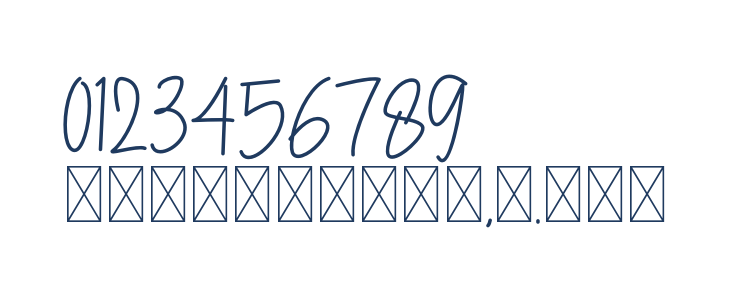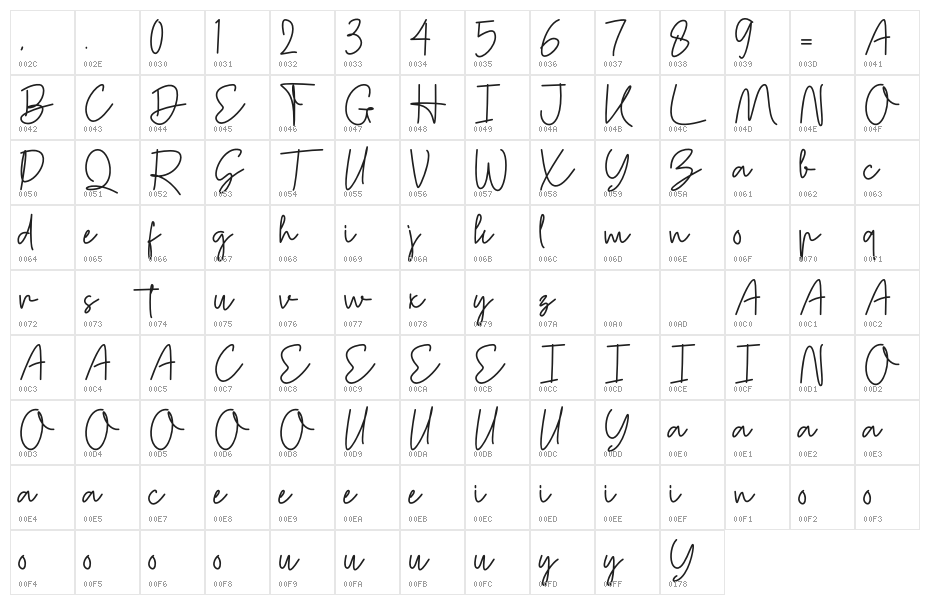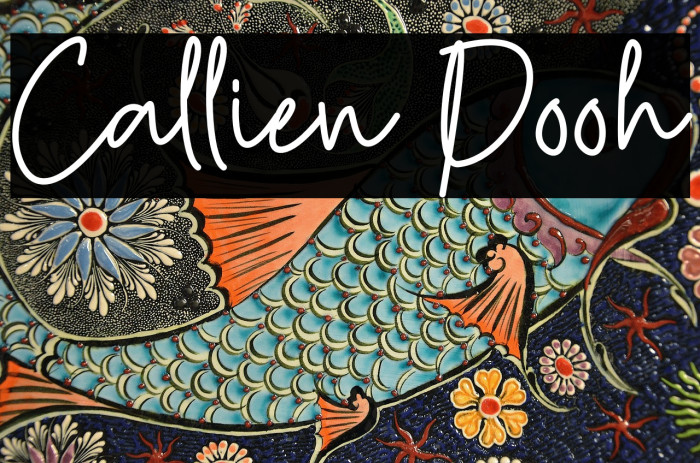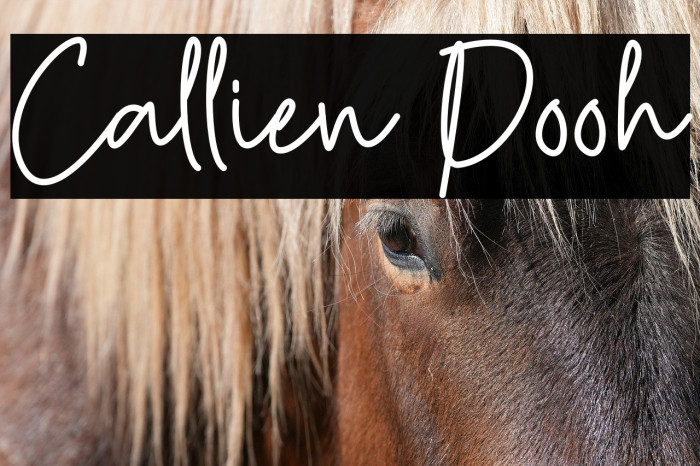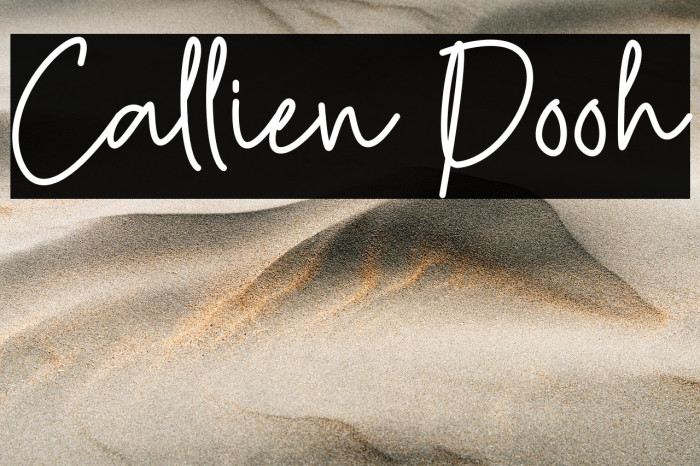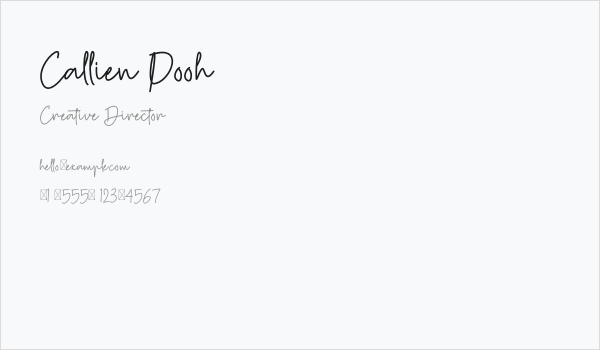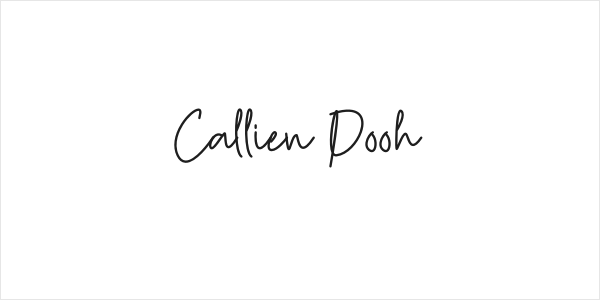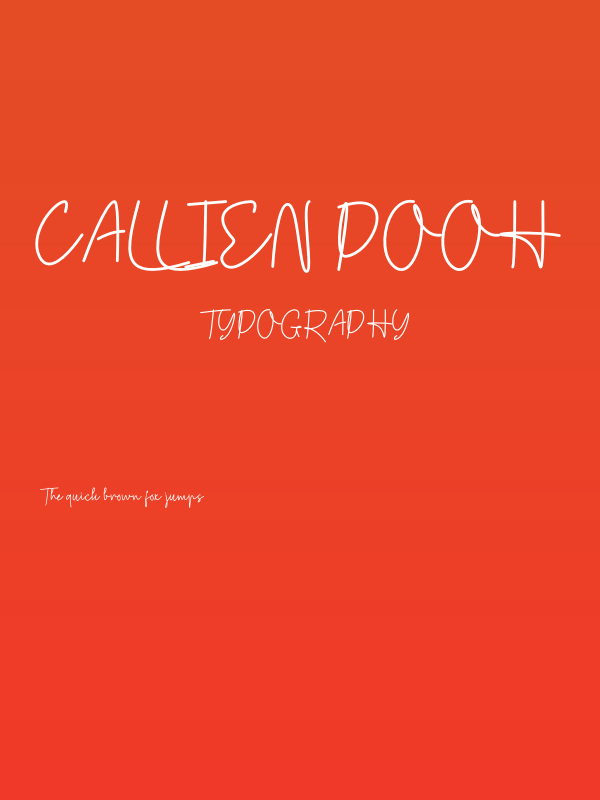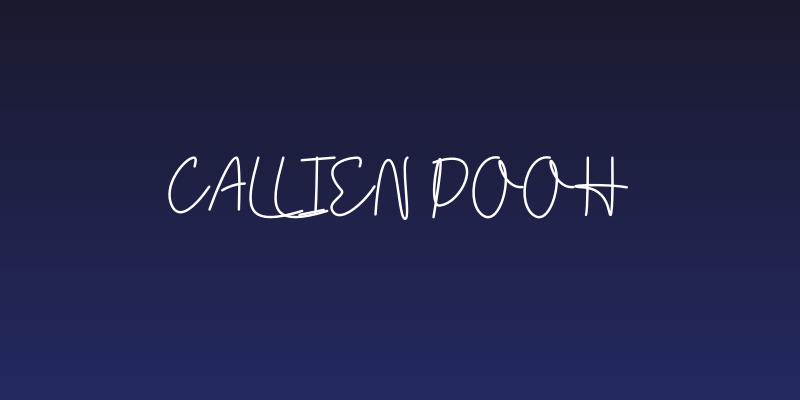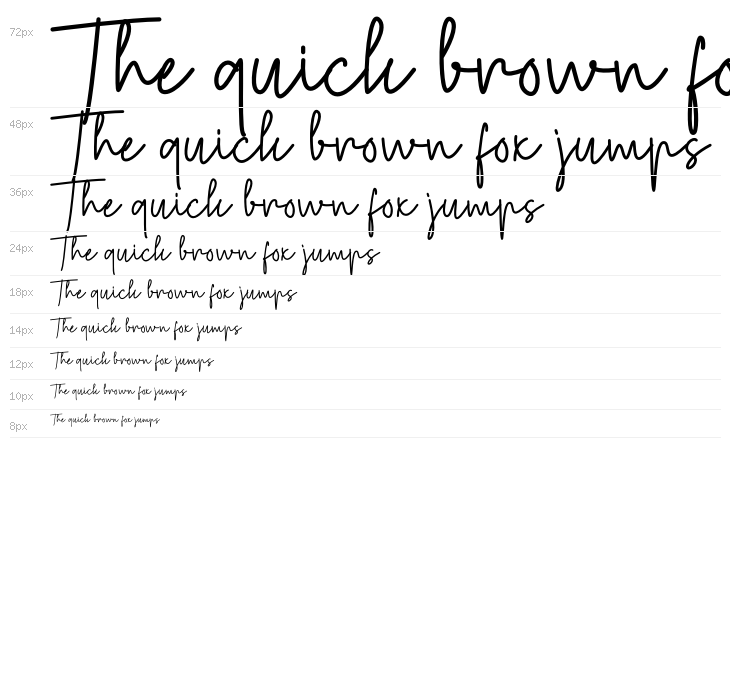
Callien Pooh Font
Callien Pooh Description
This font exudes a playful and casual handwritten style, characterized by its flowing and connected letterforms. The uppercase letters are tall and slightly narrow, with a whimsical touch that adds personality. The lowercase letters maintain a consistent flow, enhancing readability while retaining a unique flair. The numerals are clear and easy to distinguish, complementing the overall style. The special characters are creatively integrated, maintaining the font's cohesive look. This font is perfect for projects that require a personal and approachable feel.
| Use Case | Logos, Headlines, Informal Text |
| Proposed Projects | Ideal for greeting cards, invitations, personal branding, and social media graphics. |